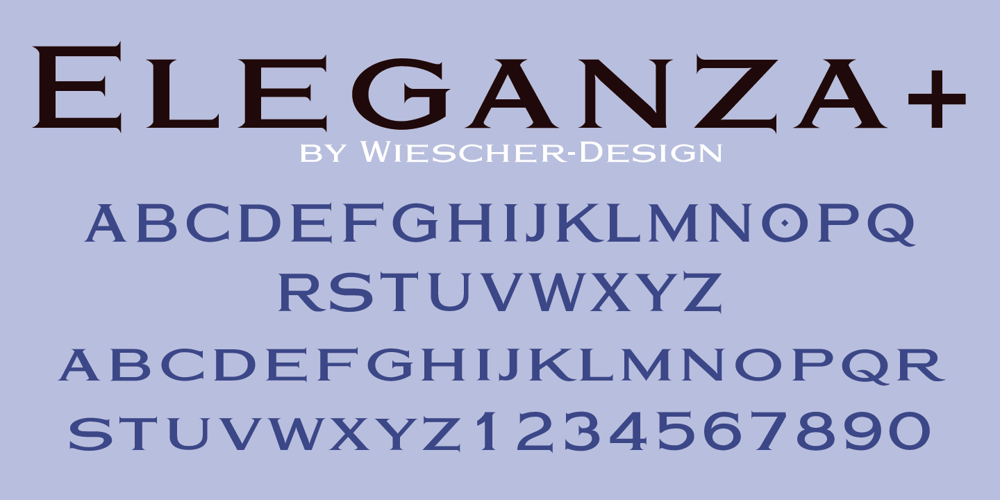
Eleganza Font Family was designed by Gert Wiescher and published by Wiescher Design. Eleganza contains 8 styles and family package options. Eleganza is my most elegant typeface. At least that is what I think! I use it for business cards and everything that has to be elegant with that extra touch. The font comes in pairs for the price of one. The “plus” version being the one with less embellishments. Your elegant designer Gert Wiescher